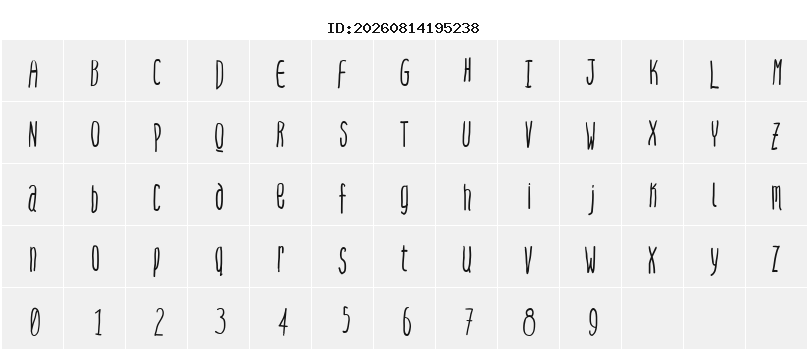
SteepQuickHand Preview
• Font Name: SteepQuickHand
• Full Font Name: SteepQuickHand
About SteepQuickHand.ttf
SteepQuickHand.ttf is a modern, elegant sans-serif font designed for ultimate readability and visual harmony. Perfect for branding, headlines, web design, and print materials.